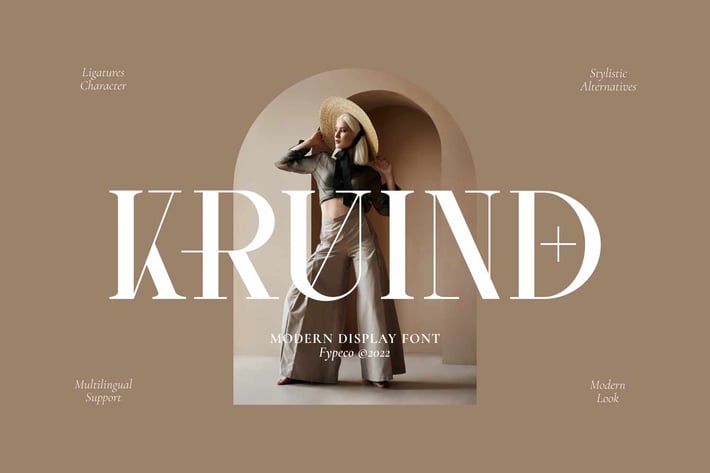
Modern Font Kruind
FypeCo
Kruind is modern display font with with a bunch of alternatives and ligatures that will make your project stunning and stand out! It looks great in all caps, lowercase, or intermixed! The modern style style also make for a stunning logos, quotes, posts, blog posts. branding projects, magazine imagery, wedding invitations, and much more.
Font Features
-Uppercase
-Lowercase
-Alternatives
-Ligatures
-Numerals & Punctuation
-Multilingual Support